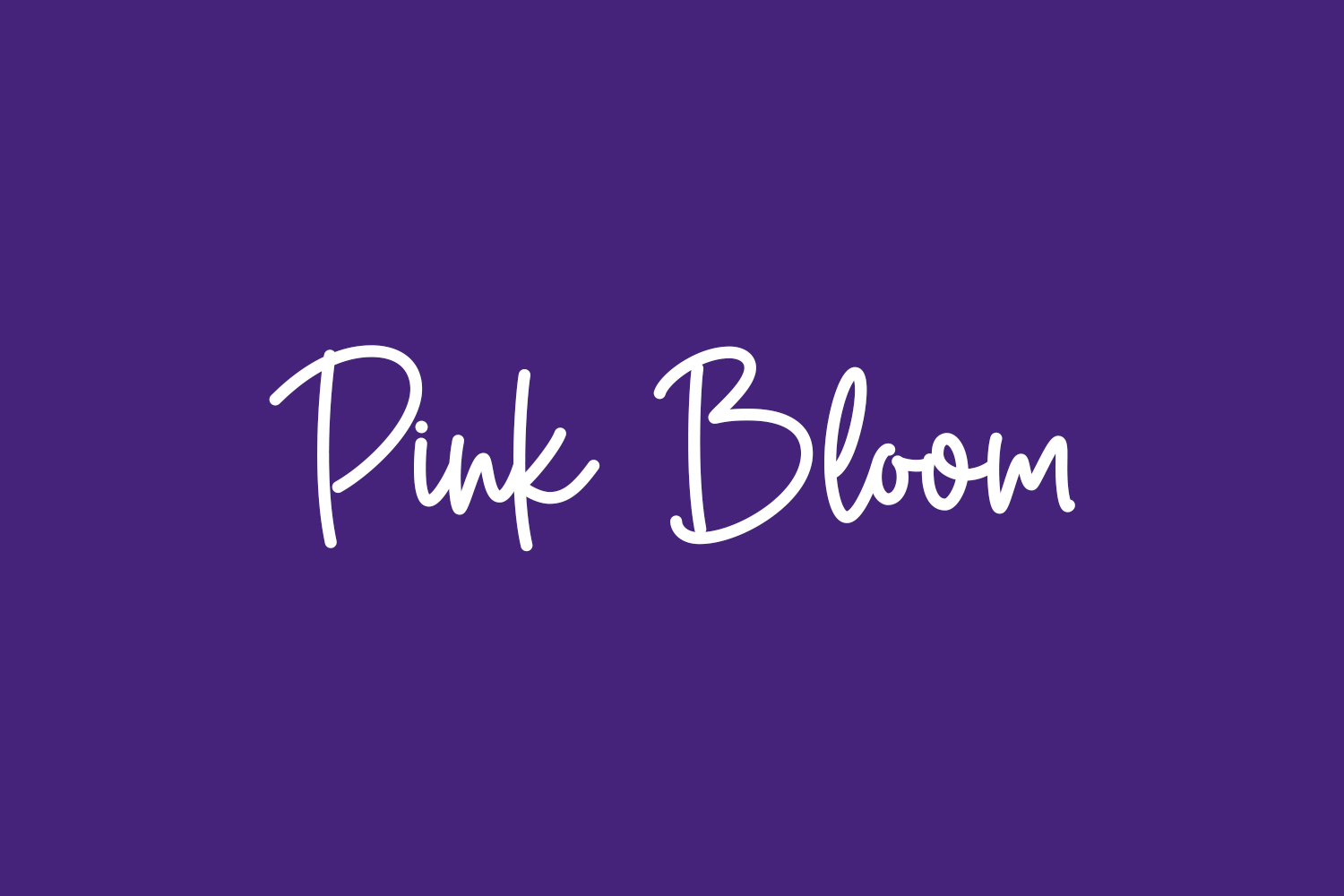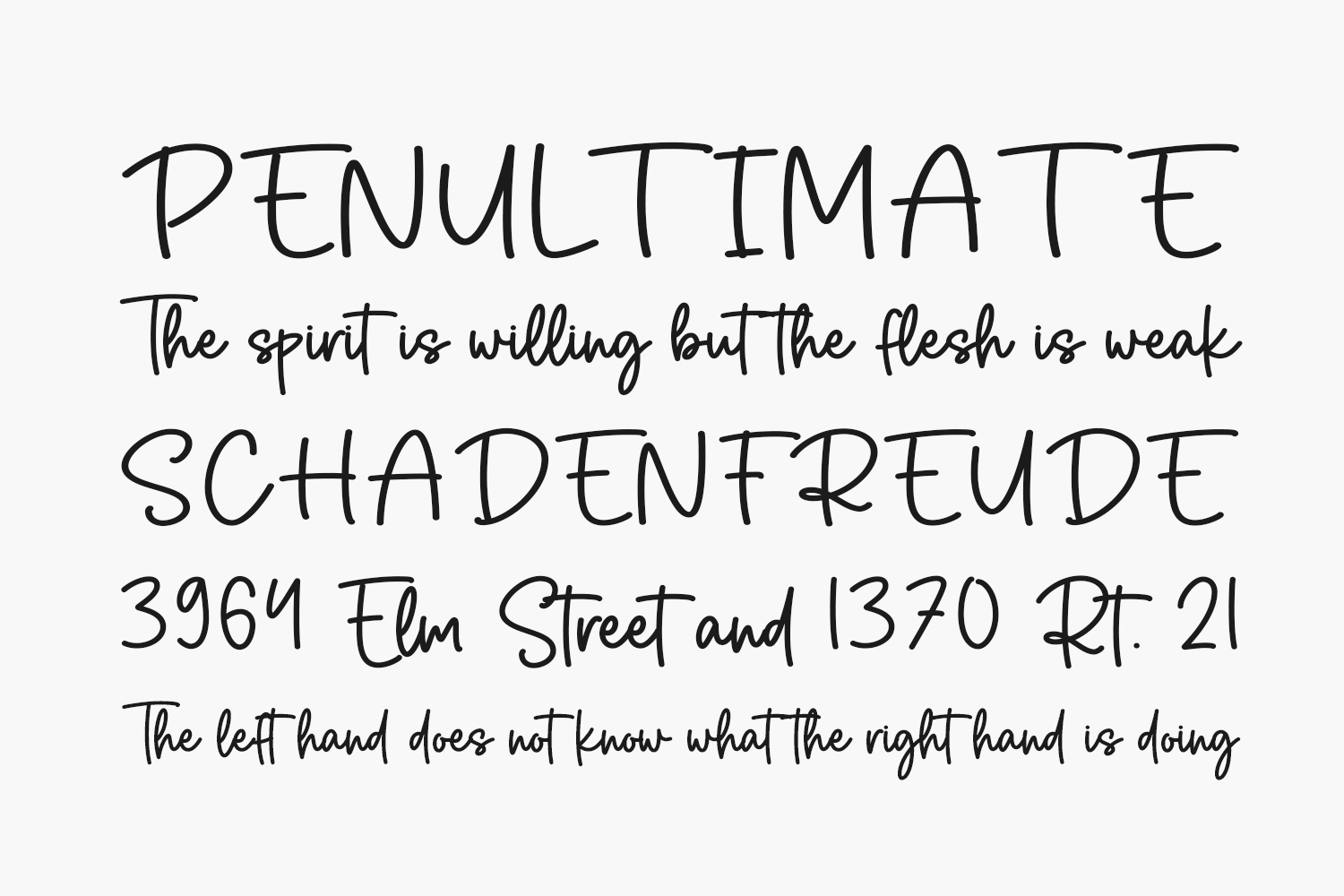
Introducing Pink Bloom Free Font, an exquisite and gracefully handwritten font. With its sweet and jubilant charm, this font is perfect for crafting wedding invitations, cards, and any design seeking a romantic and personalized touch. Pink Bloom Free Font is free for personal use only. Please purchase the full version for commercial use.
Designed by Graphix Line Studio